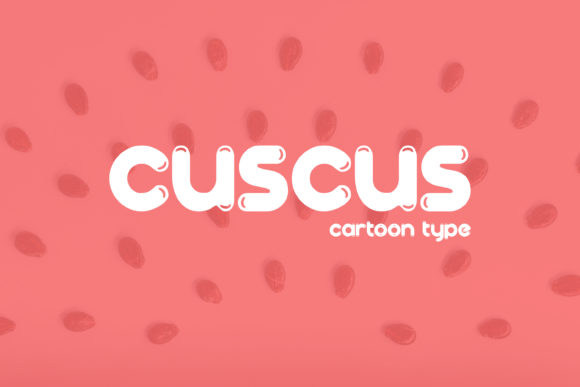
Journey into the world of Cuscus Font, a display font crafted by the talented hands at Design Stag. Prepare to be enchanted by its adorable, bubbly personality that's guaranteed to infuse your designs with a spark of joy. Let Cuscus be the star of your creative endeavors, whether it's crafting captivating cartoon-themed designs, bringing children's games to life, or designing eye-catching quotes, titles, and brand names.
With Cuscus Font, transform book covers and posters into masterpieces that radiate happiness and wonder. Let your imagination soar as you explore limitless design possibilities, knowing that Cuscus Font will add a touch of magic to each creation. This font is the perfect companion for designers seeking to infuse their work with a sense of playfulness and delight.
Dive into the world of Cuscus Font today and discover the endless possibilities it holds for captivating designs that resonate with audiences of all ages. Let your creativity shine as you unleash the full potential of this delightful font, turning your design dreams into stunning realities.